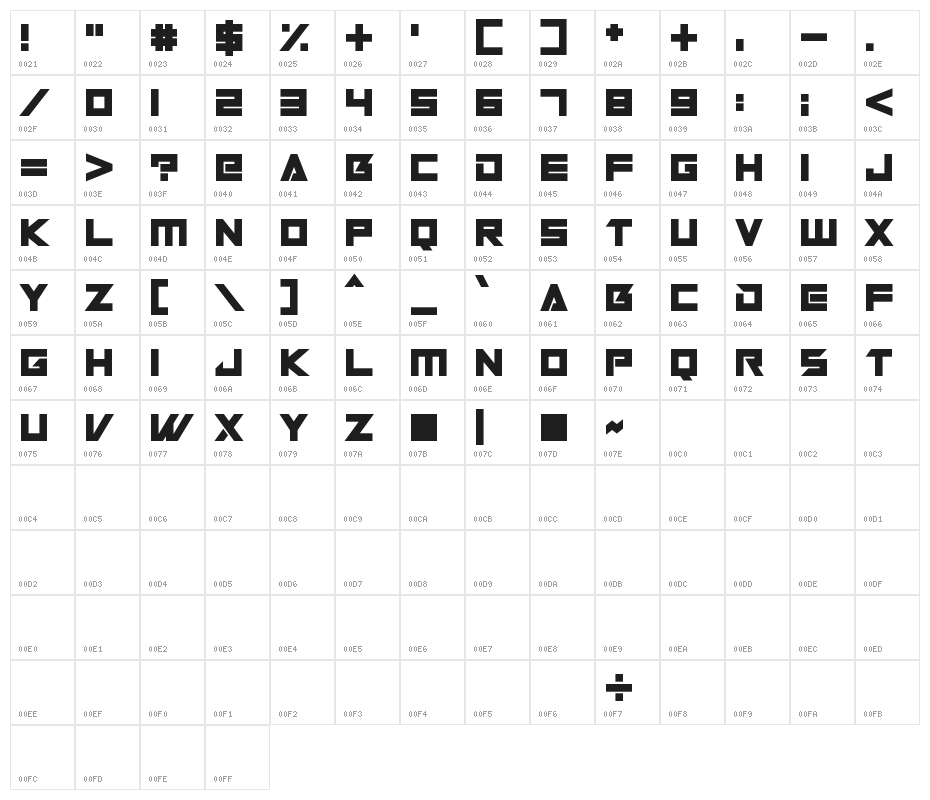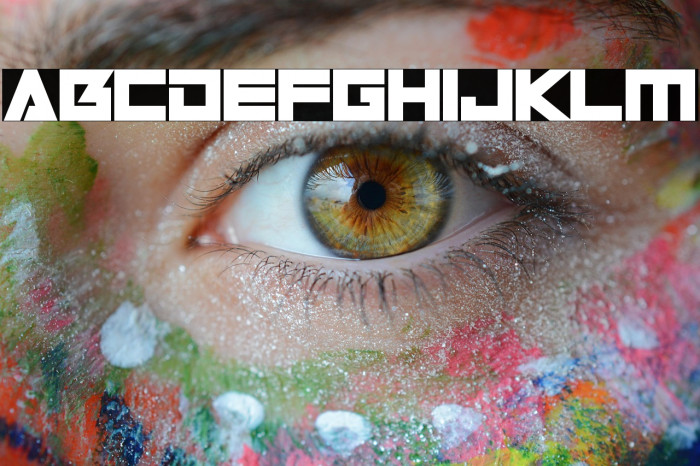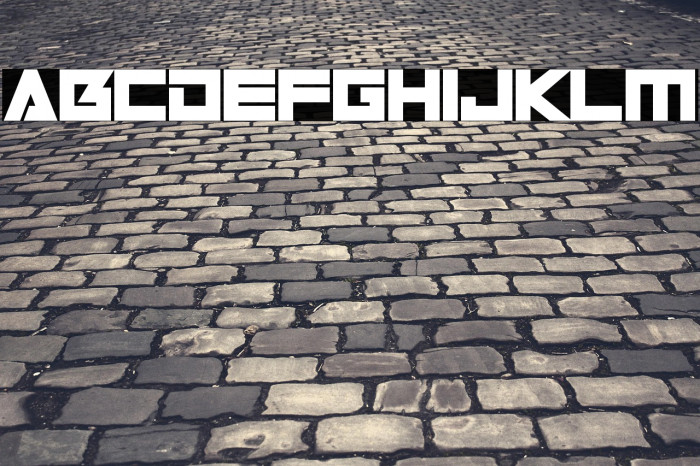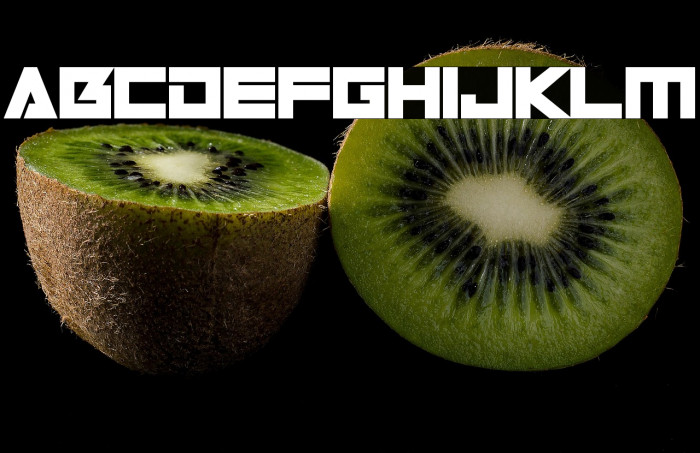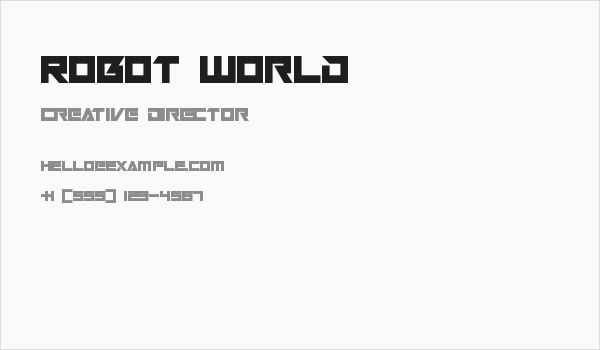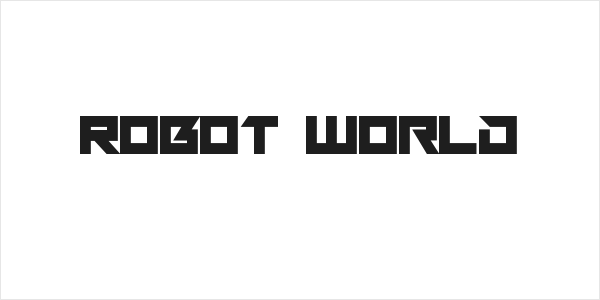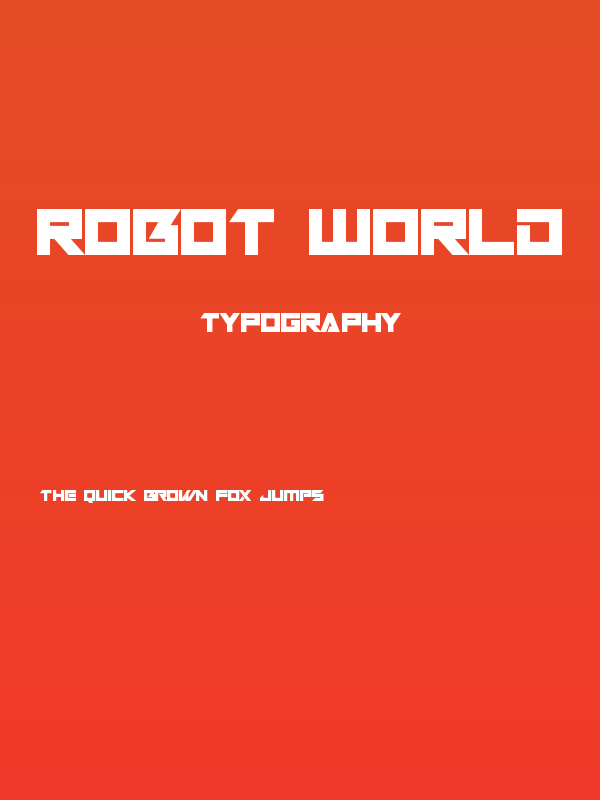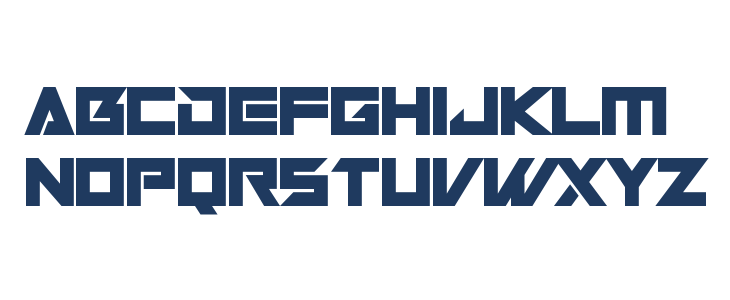
Robot World Font
This font features a bold, futuristic design with geometric shapes and sharp angles, creating a robotic and mechanical aesthetic. The uppercase and lowercase letters share a consistent style, emphasizing symmetry and uniformity. The numbers and special characters maintain the same angular and blocky appearance, contributing to the overall cohesive look. The font's strong presence and unique style make it ideal for projects that require a modern and technological feel.
| Proposed Projects | Ideal for technology-themed projects, video game titles, sci-fi movie posters, and branding for tech companies. |